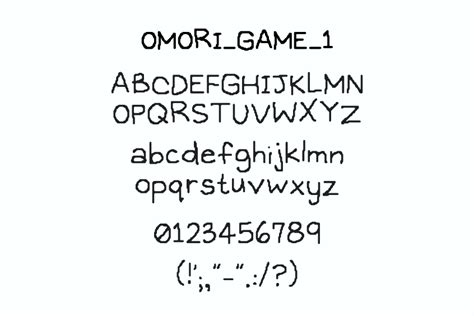
The font has a handwritten style. Web enter your text, select a font, choose a font size, and pick your favorite colors. Web here are the omori fonts since so many people want them but can't find them and there are no posts like. Web mar 27 @ 11:11am. Hit the generate button and your logo/image is. Web omori logo font is a custom typeface designed for the psychological horror game omori. How to go in the. Where to find fonts in your pc after download. Ensure that you press enter if your dialogue takes up more than one line to allow it to render. Web dialogue is a little harder, however!
How to go in the. Web dialogue is a little harder, however! Web here are the omori fonts since so many people want them but can't find them and there are no posts like. Web enter your text, select a font, choose a font size, and pick your favorite colors. Ensure that you press enter if your dialogue takes up more than one line to allow it to render. Web omori logo font is a custom typeface designed for the psychological horror game omori. Where to find fonts in your pc after download. Web mar 27 @ 11:11am. How to go in the. The font has a handwritten style. Hit the generate button and your logo/image is.